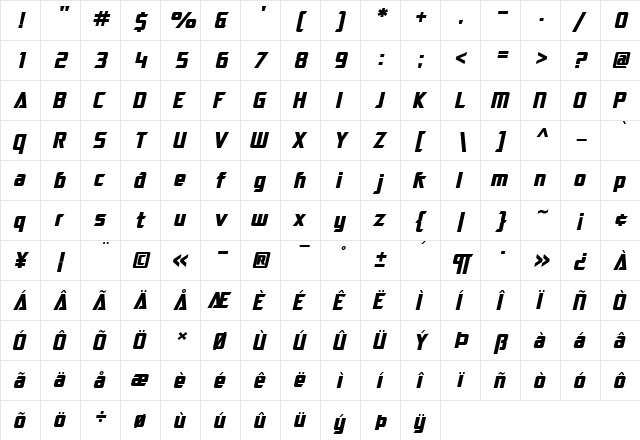
SF Electrotome Bold Oblique Font Preview
| Designer | ShyFonts Type Foundry |
Design Context for SF Electrotome Typeface
SF Electrotome offers clean, dependable letterforms without strong stylistic allegiance, making it a practical choice for designers who need flexibility. Its italic angle brings a sense of urgency and motion to the letterforms. Its bold stroke weight gives it real presence on the page.
Pro Tip: Try SF Electrotome for annotation and caption copy alongside an upright companion — the contrast in angle creates a dynamic but ordered typographic system.